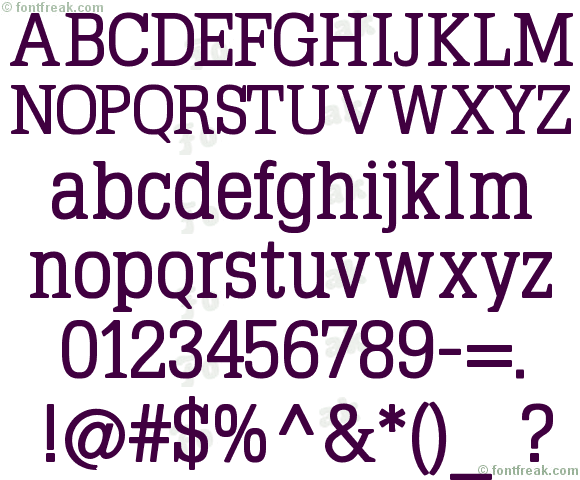
TypoLatinserif-Bold
About TypoLatinserif-Bold
TypoLatinserif-Bold is a striking serif font designed by Manfred Klein in 2003. As a bold variant within the serif category, it exudes a strong presence, making it ideal for projects that require a touch of elegance combined with authority. The font showcases a well-defined stroke weight, providing noticeable contrast that enhances readability, while its balanced spacing ensures clarity across various applications. The decorative elements are subtle yet effective, adding a classic touch without overwhelming the text.
This font is particularly suited for a range of use cases. It shines in wedding invitations, where its boldness can elegantly convey the significance of the occasion. For movie posters, TypoLatinserif-Bold captures attention perfectly, making it an excellent choice for titles and taglines that need to stand out. Restaurant menus can also benefit from its sophisticated aesthetic, giving patrons a sense of quality and refinement. Additionally, it works well for branding materials, such as business cards or flyers, where a memorable and established look is essential.
The target audience for TypoLatinserif-Bold includes graphic designers seeking a versatile font that adds character to their designs, small business owners aiming to elevate their branding, and content creators looking for a bold typeface that enhances their visual storytelling.
The TypoLatinserif-Bold font free download makes it accessible for anyone looking to enrich their design toolkit. What sets this font apart is its ability to blend traditional serif characteristics with a modern boldness, making it suitable for both formal and creative contexts. Its timeless appeal and professional look ensure that it remains a valuable asset for any project, helping designers make a lasting impression.